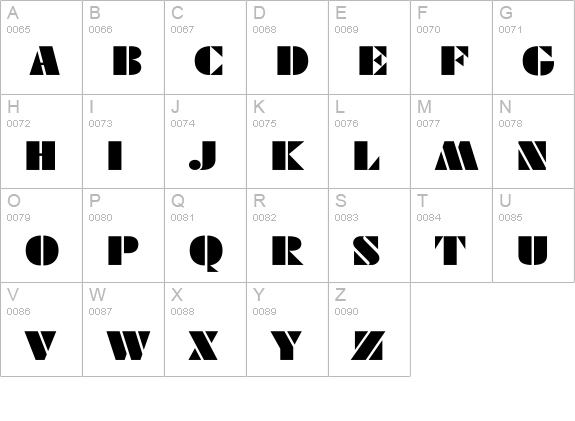
DekoblackExpanded font is a bold and eye-catching typeface that exudes a modern and stylish vibe. With its sleek design and sharp edges, this font is perfect for making a statement in your projects. Whether you're creating posters, logos, or branding materials, DekoblackExpanded font will certainly grab attention and leave a lasting impression. The best part? DekoblackExpanded font is completely free to download at FontsMarket.com. You can easily add this striking font to your collection and use it for both personal and commercial projects without any restrictions. Don't miss out on the opportunity to elevate your designs with the distinctive flair of DekoblackExpanded font - get your free download today!